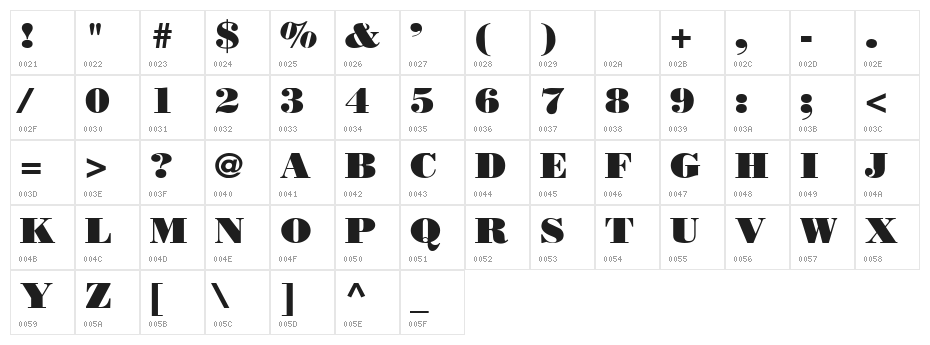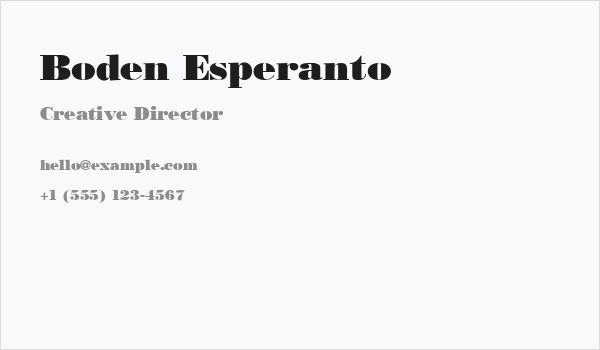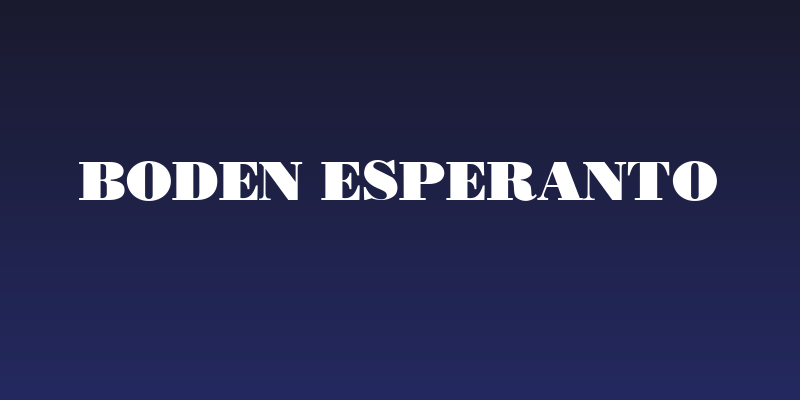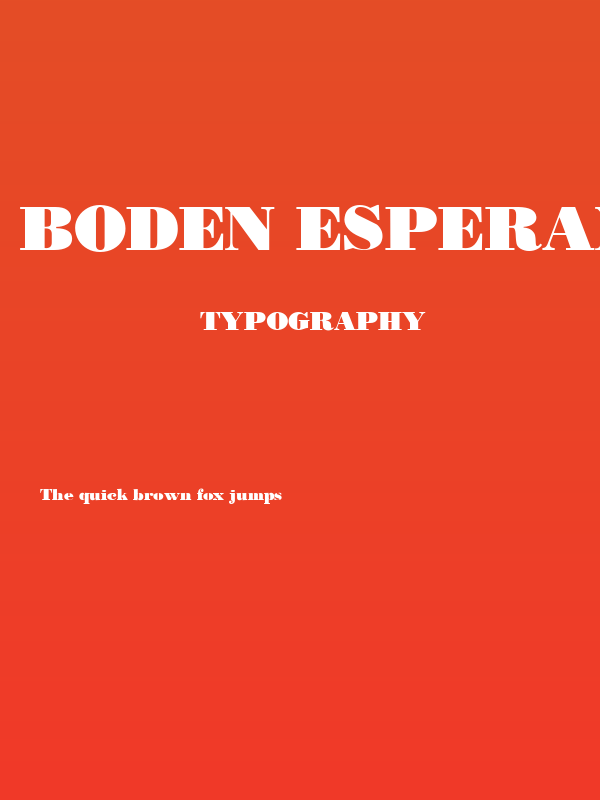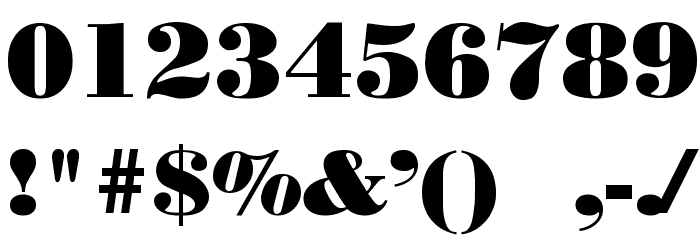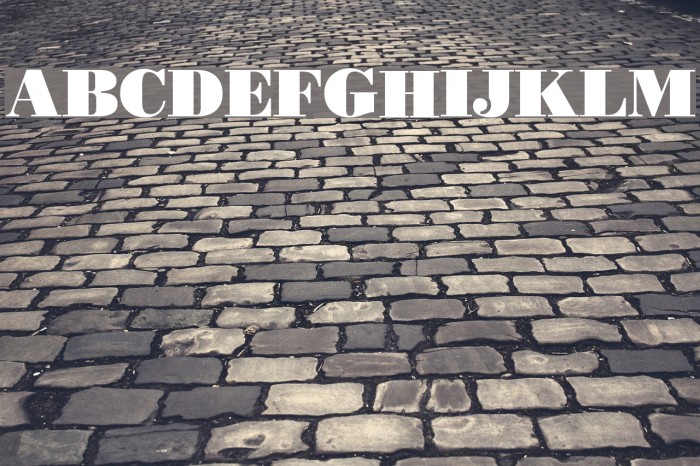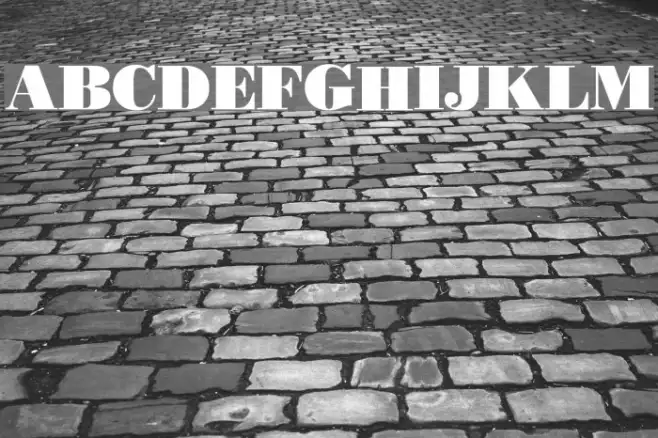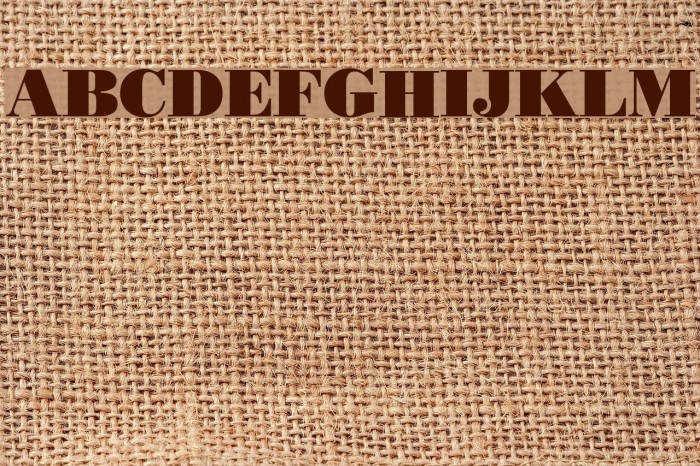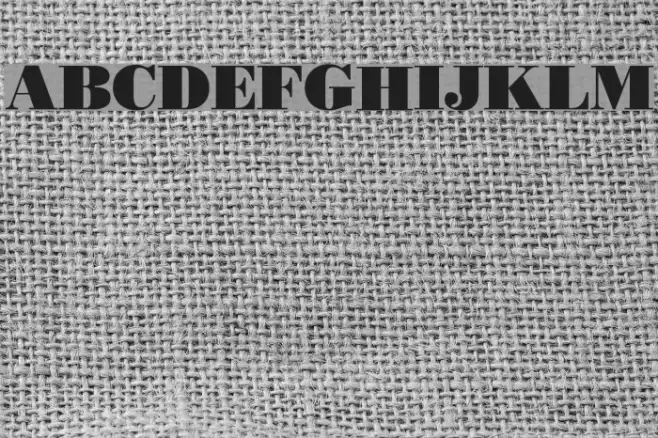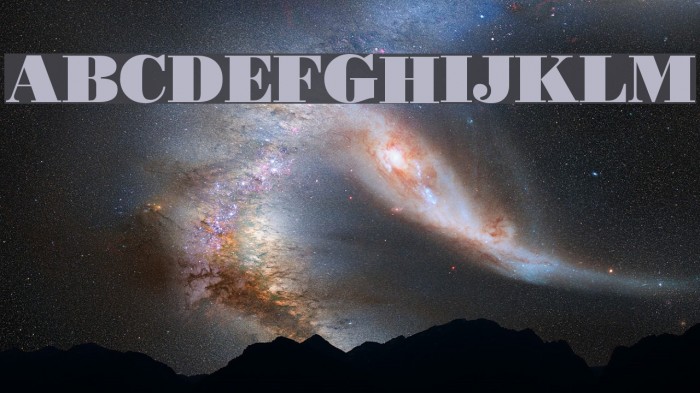
Boden Esperanto Font
Boden Esperanto Description
This font exhibits a bold and commanding presence with its thick, heavy strokes and high contrast between thick and thin lines. The serifs are pronounced and add a touch of elegance, making it suitable for impactful headlines and titles. The uppercase letters are particularly striking, with a strong vertical emphasis and slightly condensed forms. The lowercase letters maintain a consistent style, ensuring readability while retaining the bold aesthetic. Numbers and special characters are designed to match the overall robust style, making them stand out effectively in any composition.
| Proposed Projects | This font is perfect for magazine covers, posters, branding materials, and any project that requires a strong visual impact. |